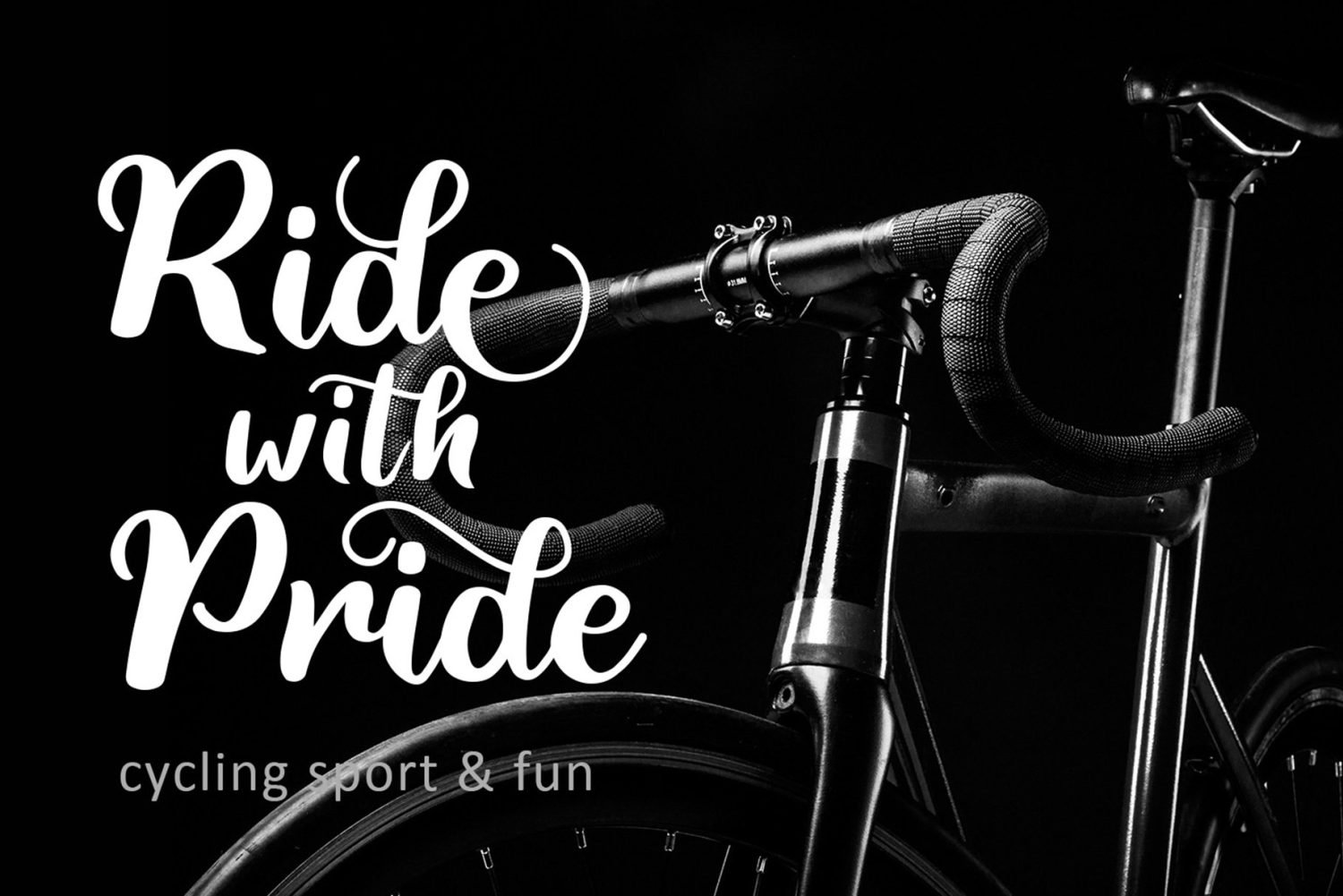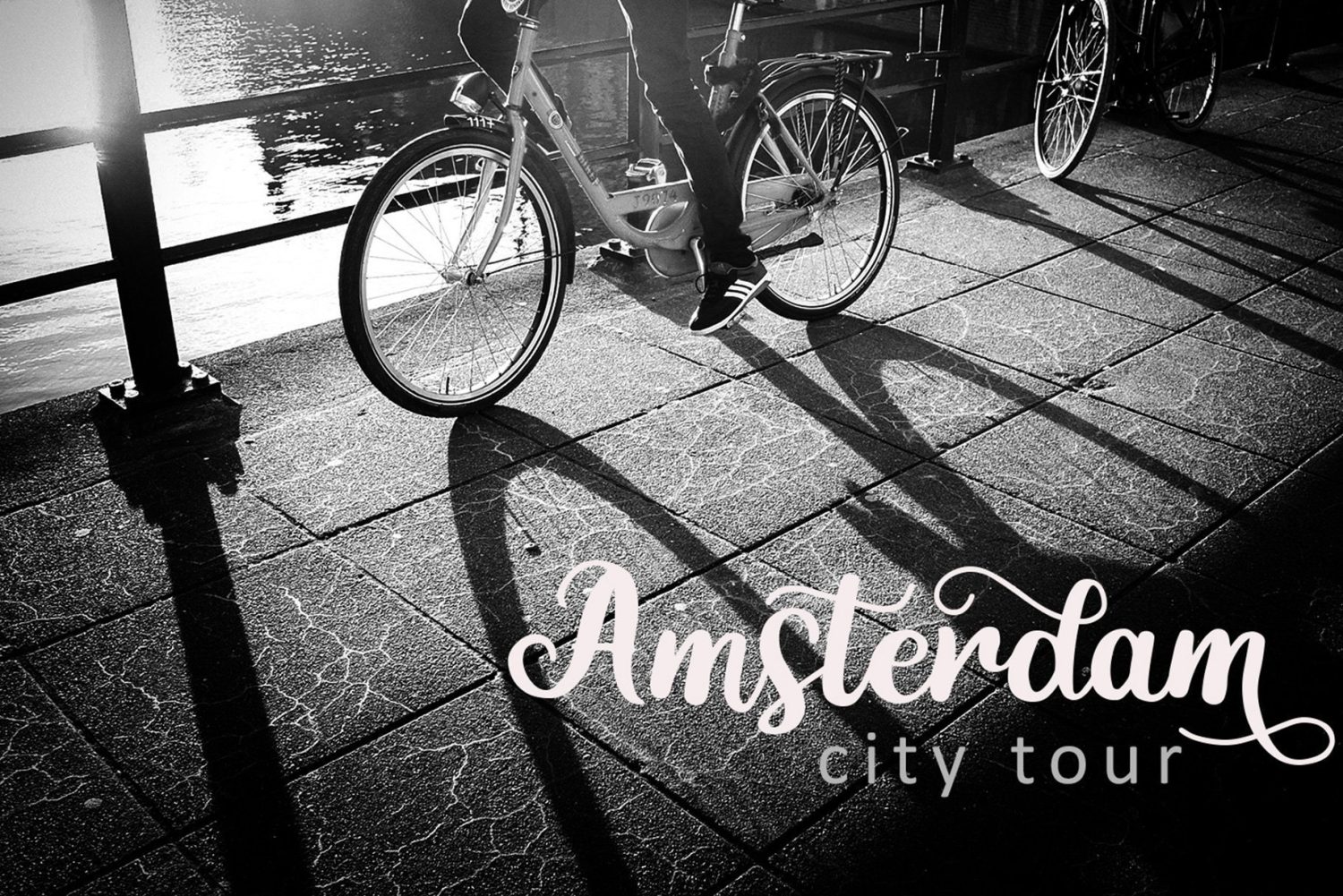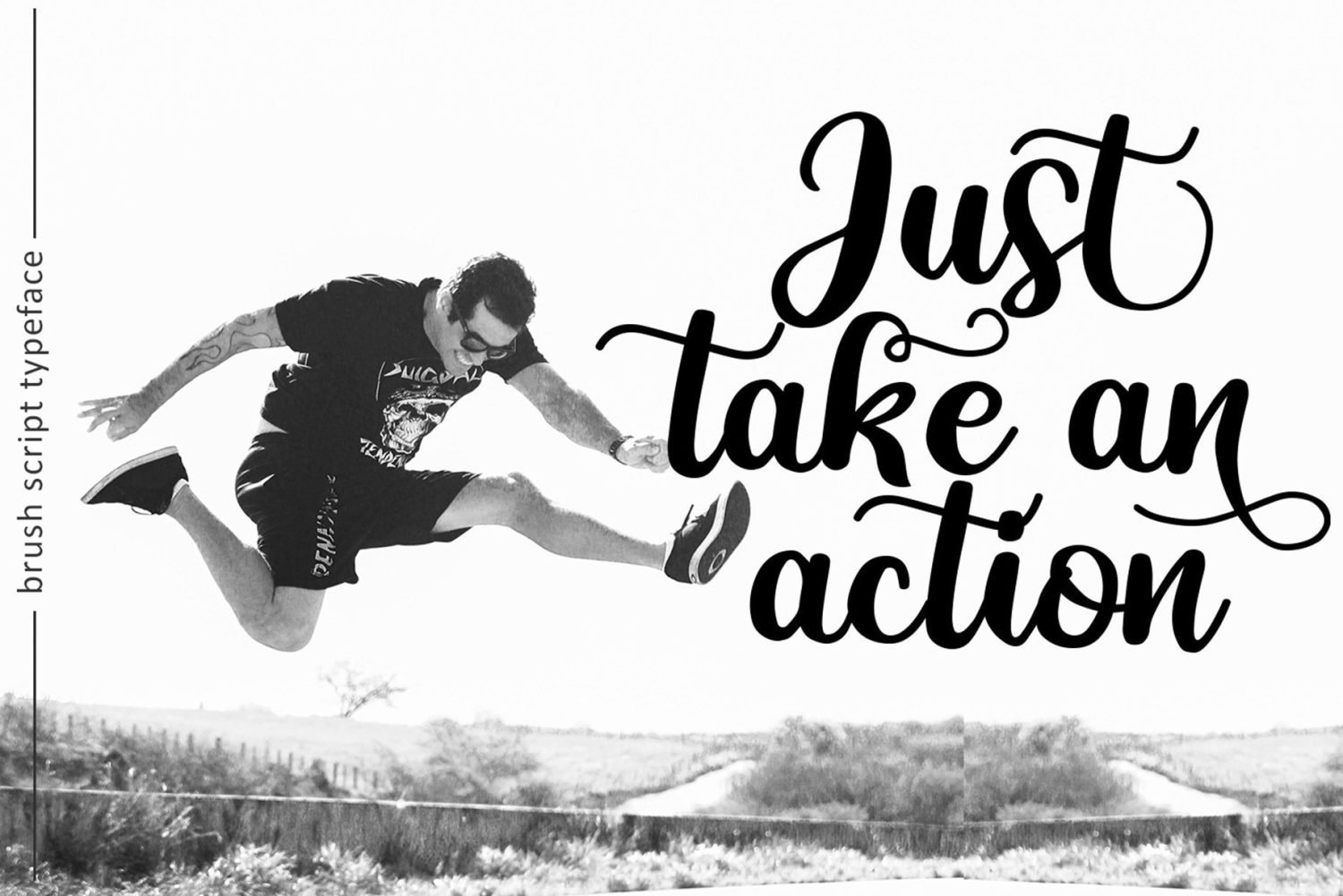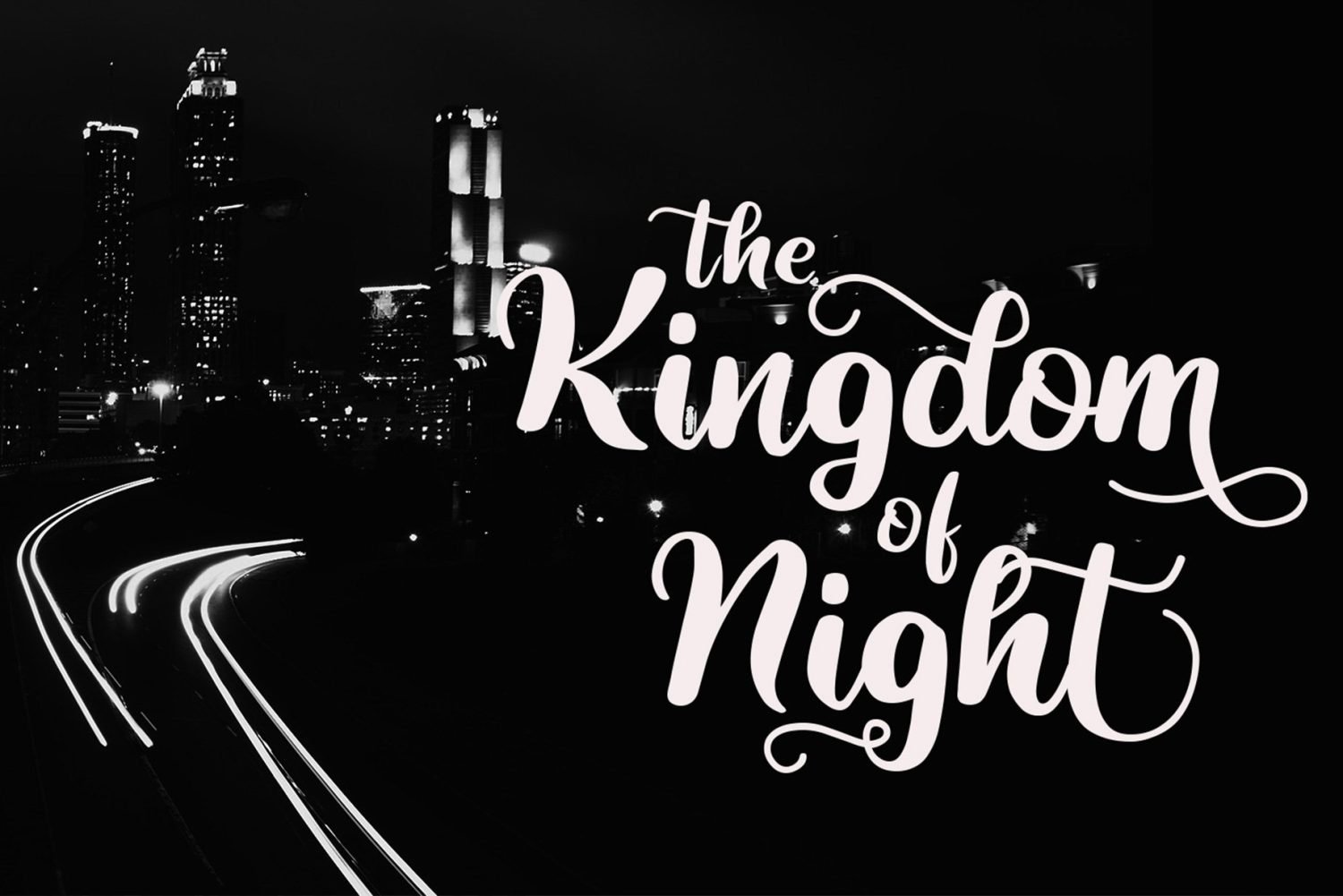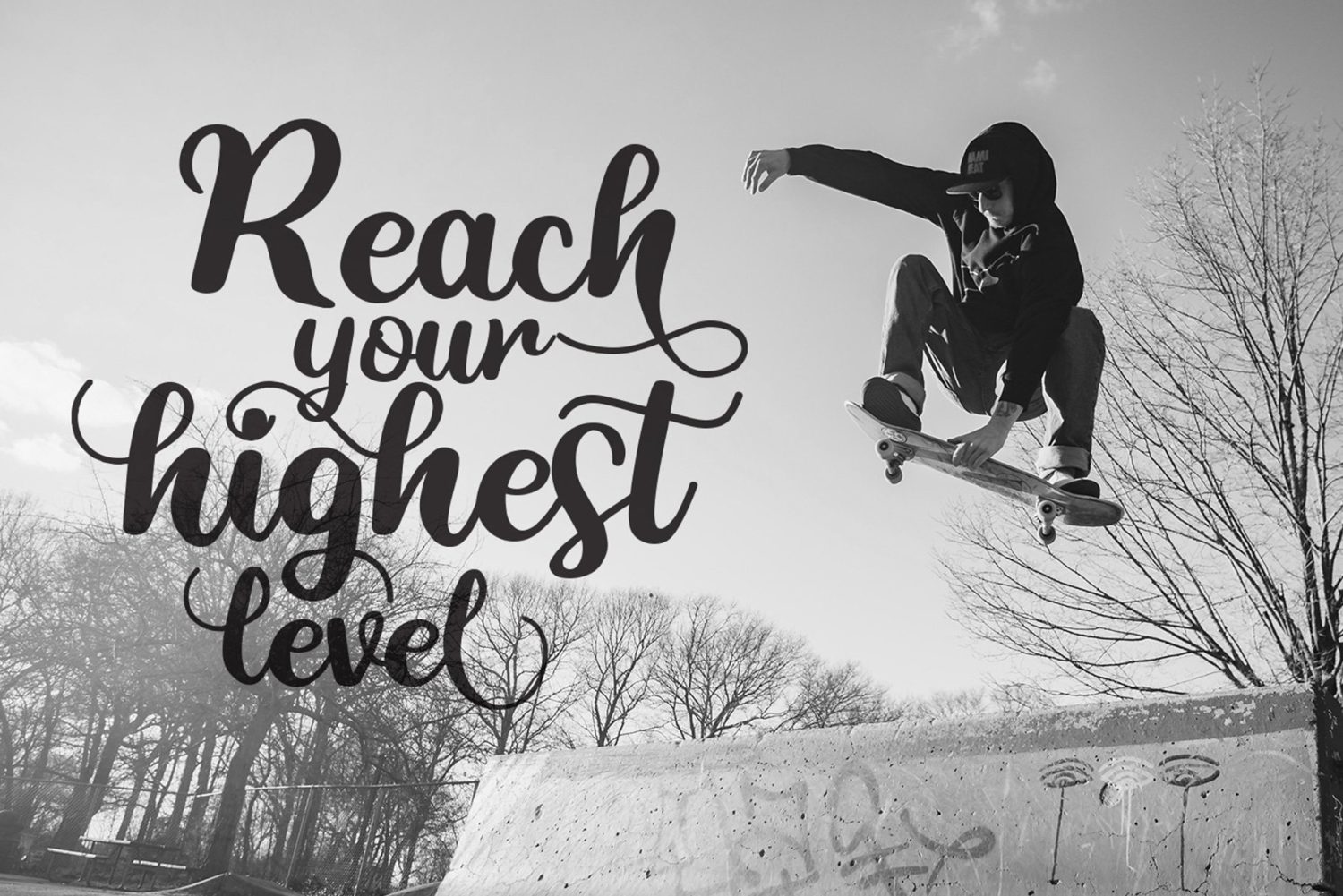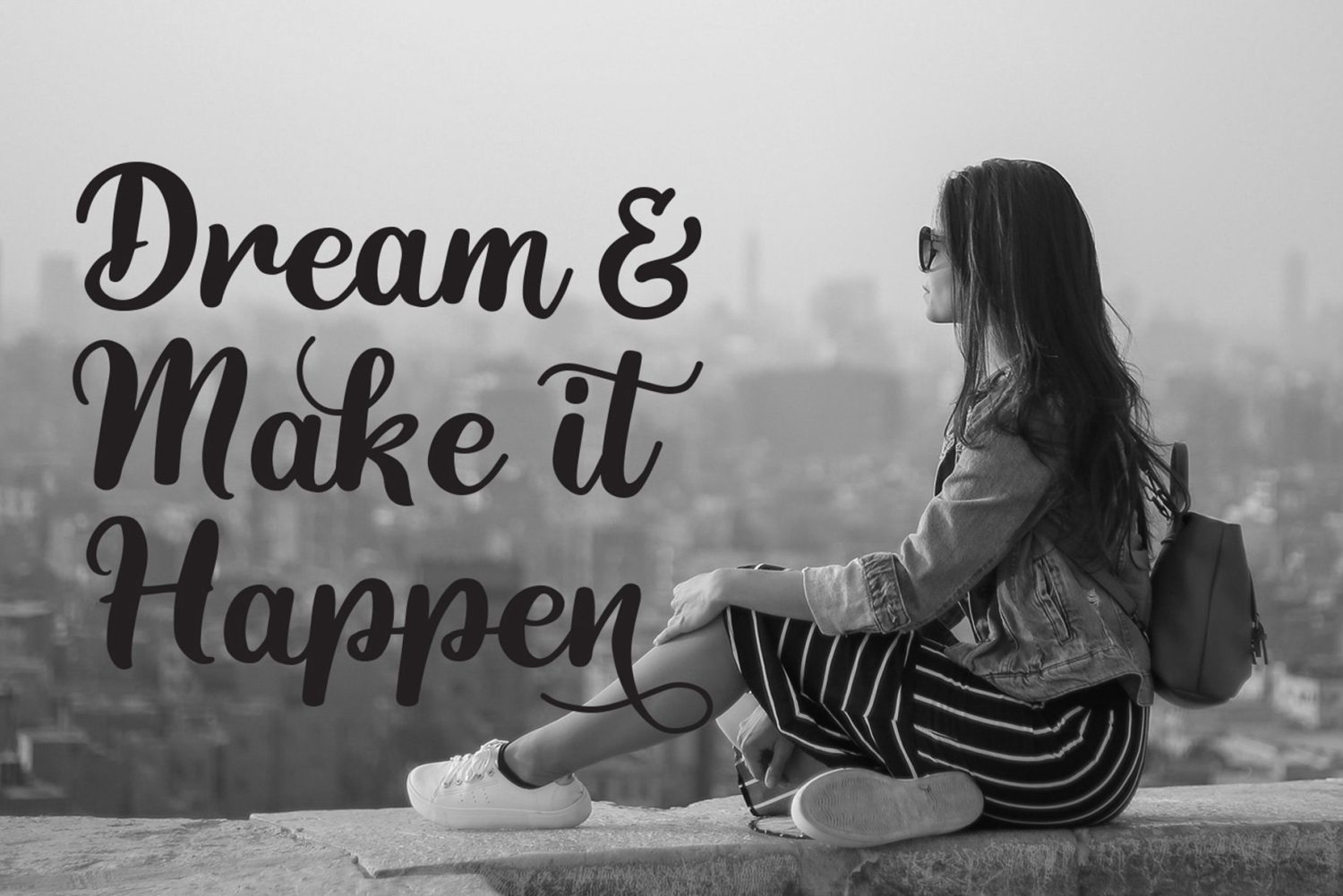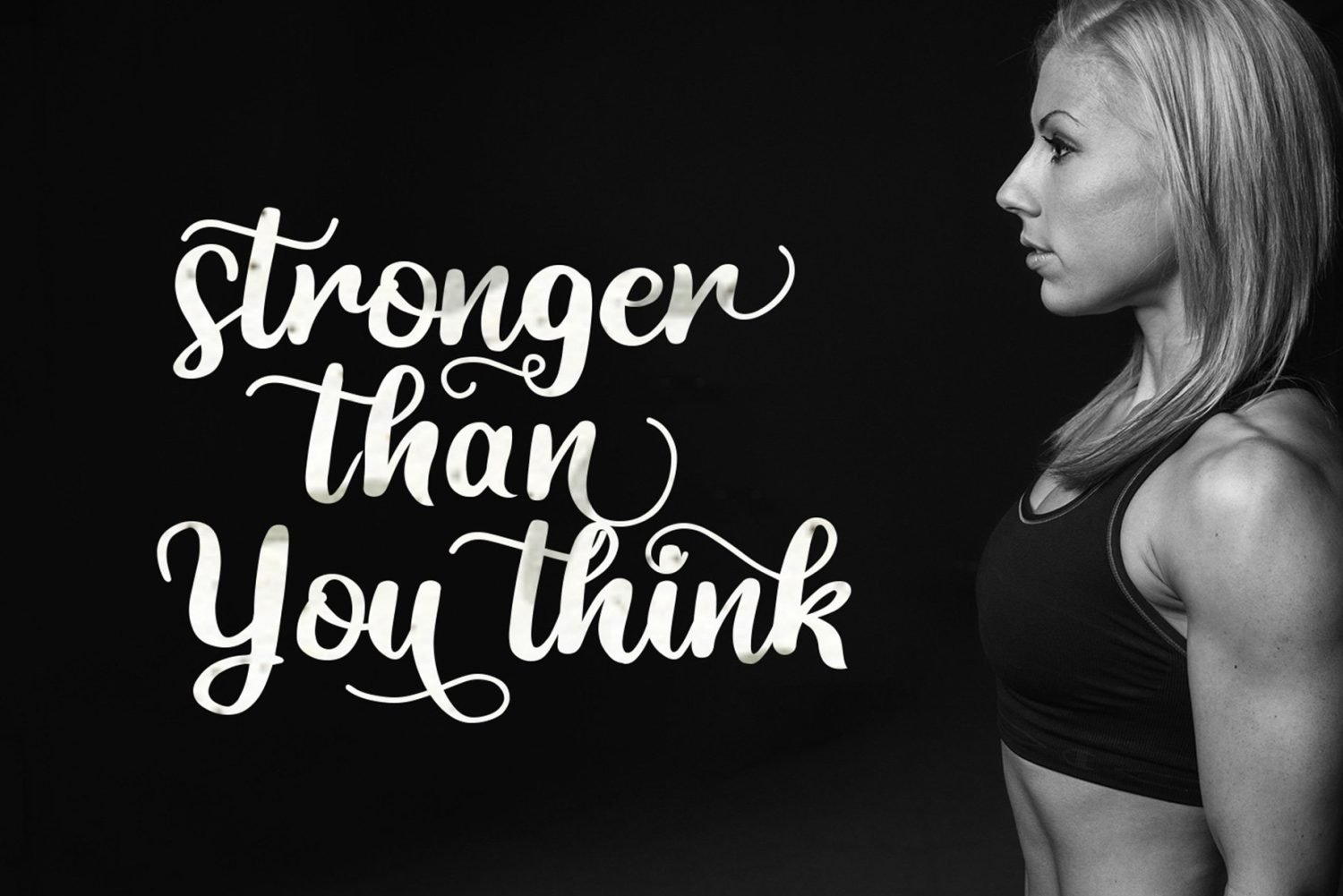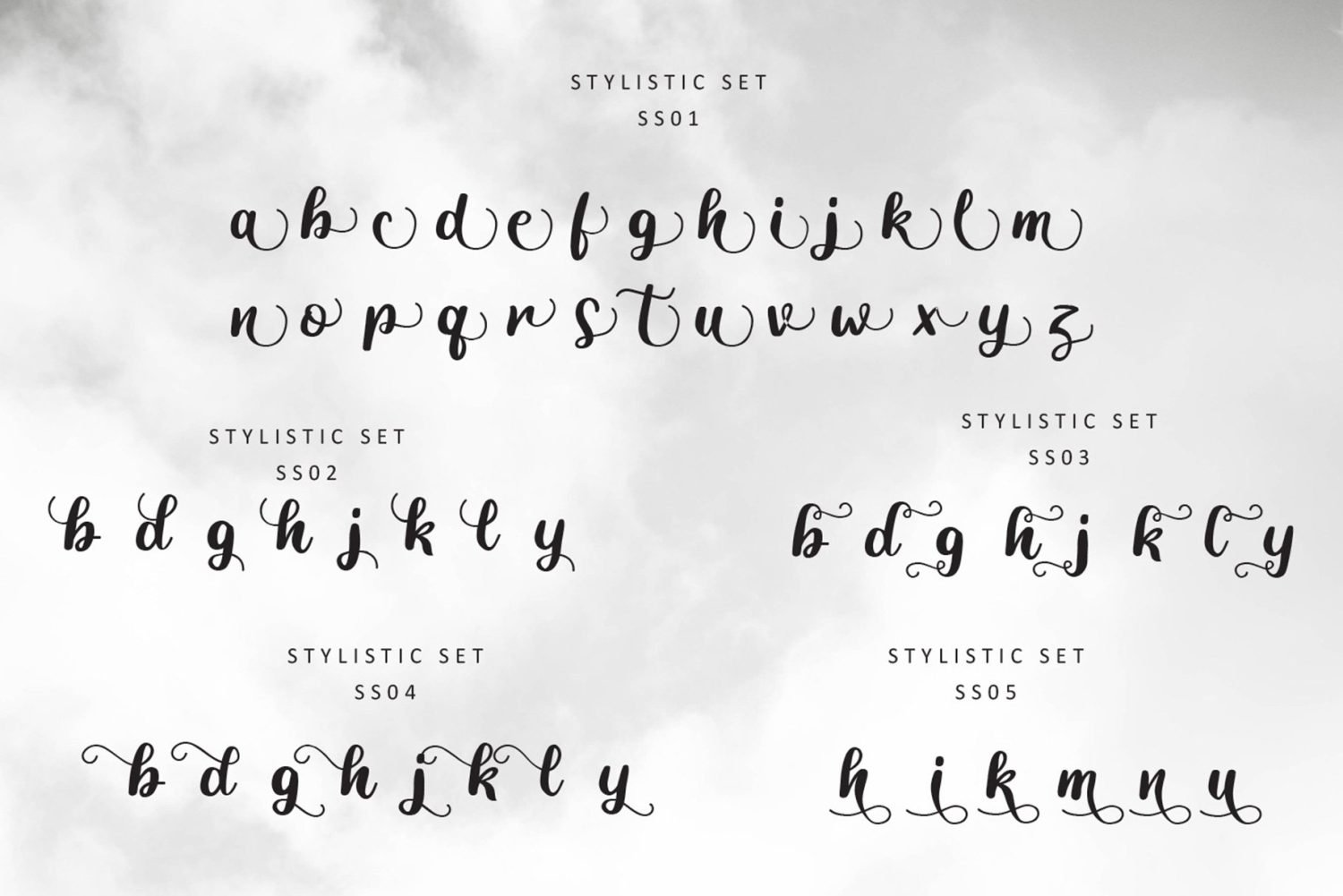
Highest Script style – a new modern & fresh script with a handwritten and natural script style. This font will make your design look elegant, natural and stylish.
Highest Font is perfect for any awesome projects such as photography, watermark, quote design, social media posts, advertisements, logos & branding, invitation, product designs, label, stationery, wedding designs, product packaging, special events or any project that need handwriting taste.